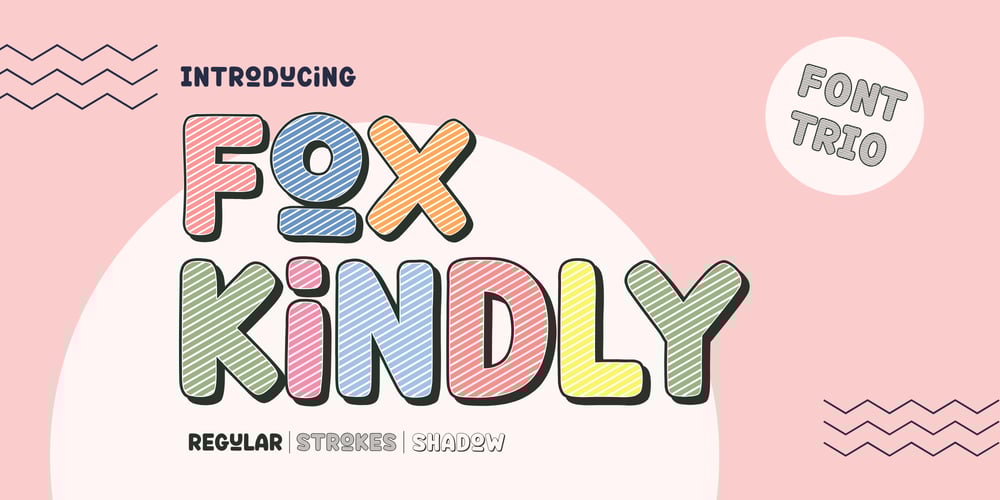
Fox Kindly Shadow
Fox Kindly Shadow font
Fox Kindly Shadow Font Family was designed by Rattana Rattanawan and published by Fox7. Fox Kindly Shadow contains 3 styles and family package options. Fox Kindly is a 3 style font that cool cute and playful display font that adds a captivating and energetic touch to your designs. Perfect for use in publications, menus, logos, business cards, or even printed on t-shirts, these fonts exude uniqueness. Its main feature is its vibrant and expressive design, allowing you to create attention-grabbing headlines, t-shirt typography, banners, product labels, and more